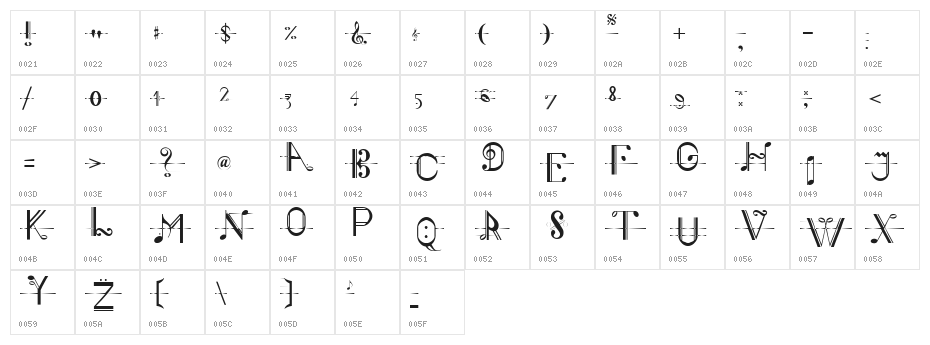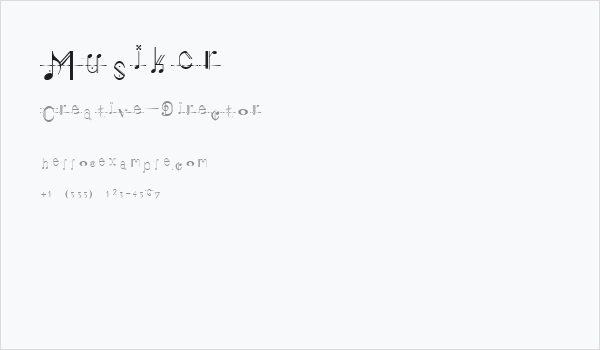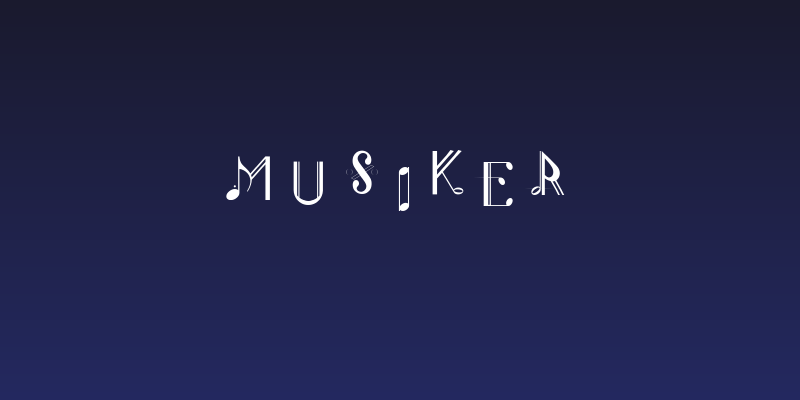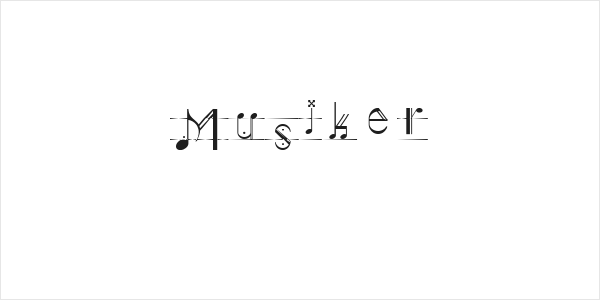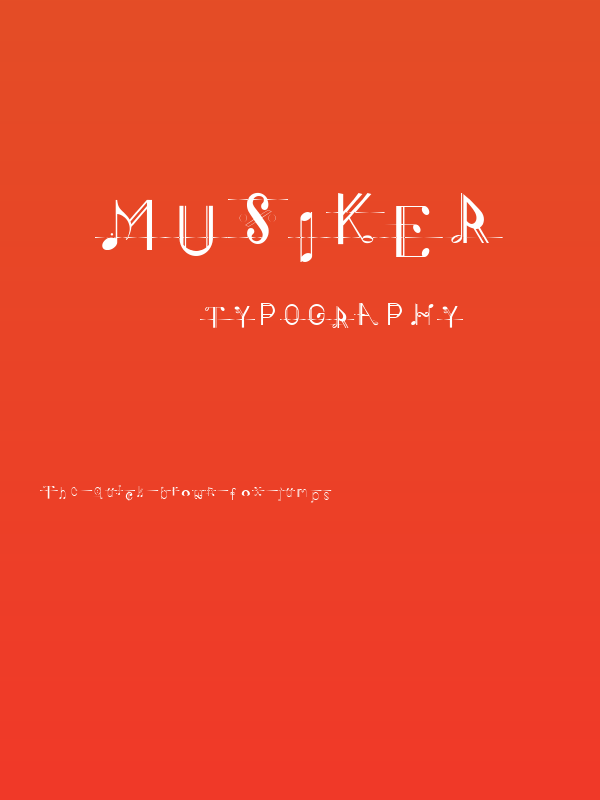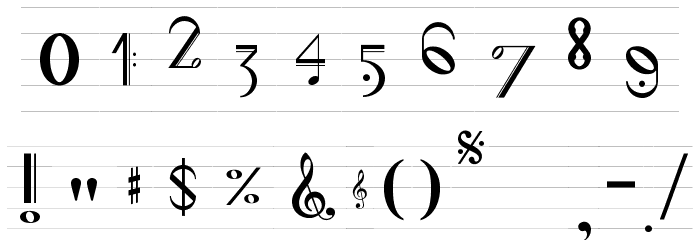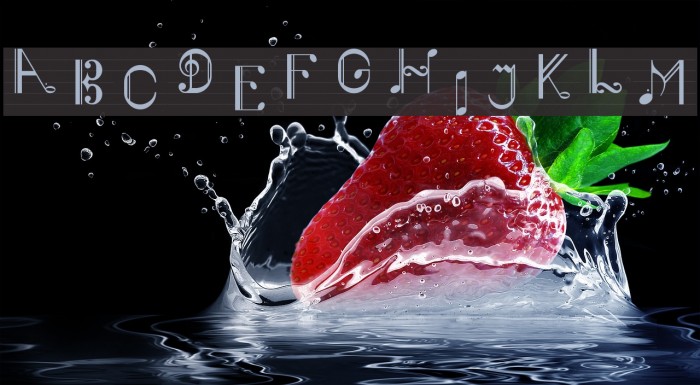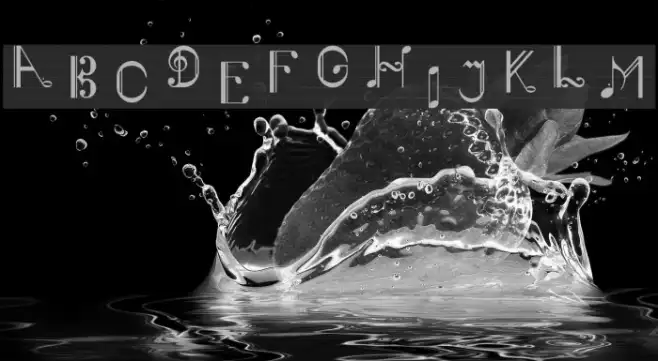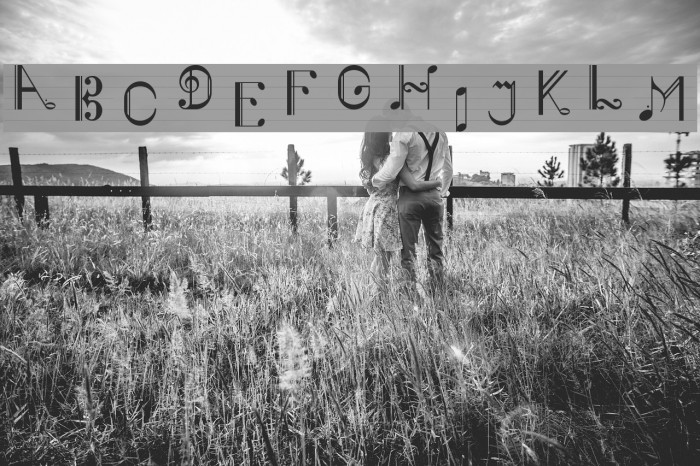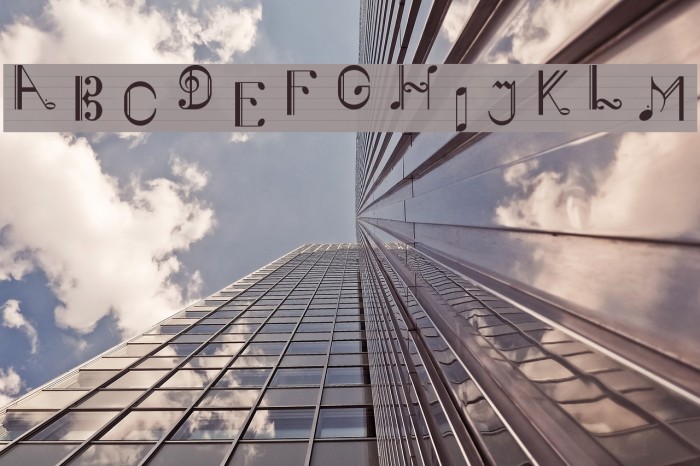
Musiker Font
Musiker Description
This font is a playful and creative typeface that integrates musical elements into its design. Each character is adorned with musical notes, clefs, and other related symbols, giving it a whimsical and artistic flair. The uppercase and lowercase letters maintain a consistent style, with decorative elements that mimic musical notation. The numbers and special characters also follow this theme, making it a cohesive and thematic font. The overall appearance is both decorative and functional, suitable for projects that require a musical or artistic touch.
| Proposed Projects | Ideal for music-themed posters, concert flyers, album covers, and educational materials related to music. |